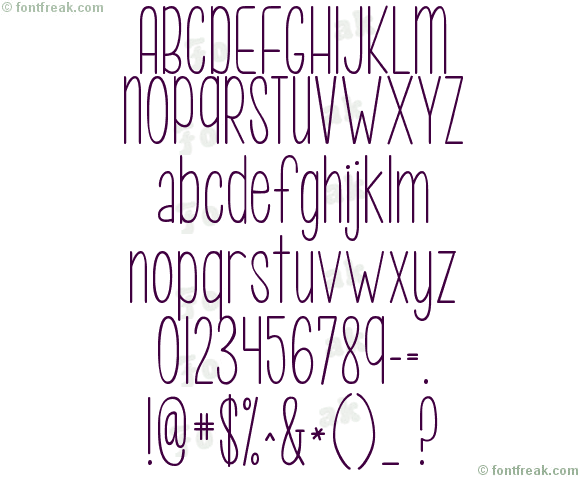
KG Call Me Maybe
About KG Call Me Maybe
KG Call Me Maybe is a delightful handwritten font designed by Kimberly Geswein, characterized by its playful and informal style. This script font falls into the category of decorative typefaces, featuring smooth, rounded strokes that exude warmth and approachability. The contrast in stroke weight is subtle, providing a harmonious visual flow that enhances readability while maintaining a casual charm. The spacing is thoughtfully balanced, allowing for easy legibility, making it suitable for various design projects.
Perfect for a range of creative applications, the KG Call Me Maybe font shines in wedding invitations, where its whimsical nature can evoke joy and romance. It also works beautifully on greeting cards, adding a personal touch to heartfelt messages. Restaurant menus can benefit from its inviting aesthetic, enticing diners with a warm, friendly vibe. Additionally, this font is an excellent choice for social media graphics, helping content creators make their posts stand out in a crowded digital landscape.
Targeted primarily at graphic designers, small business owners, and content creators, the KG Call Me Maybe font resonates with those looking to infuse their projects with personality. Its unique style allows users to capture the attention of their audience while conveying a sense of fun and creativity.
In a world brimming with generic typefaces, the KG Call Me Maybe font stands out thanks to its distinctive handwritten look. It combines elegance with a touch of whimsy, making it ideal for projects that require a personal touch. For those interested in enhancing their design toolkit, the KG Call Me Maybe font free download offers an accessible opportunity to elevate any creative endeavor. Embrace the charm of this font and let it bring your ideas to life.